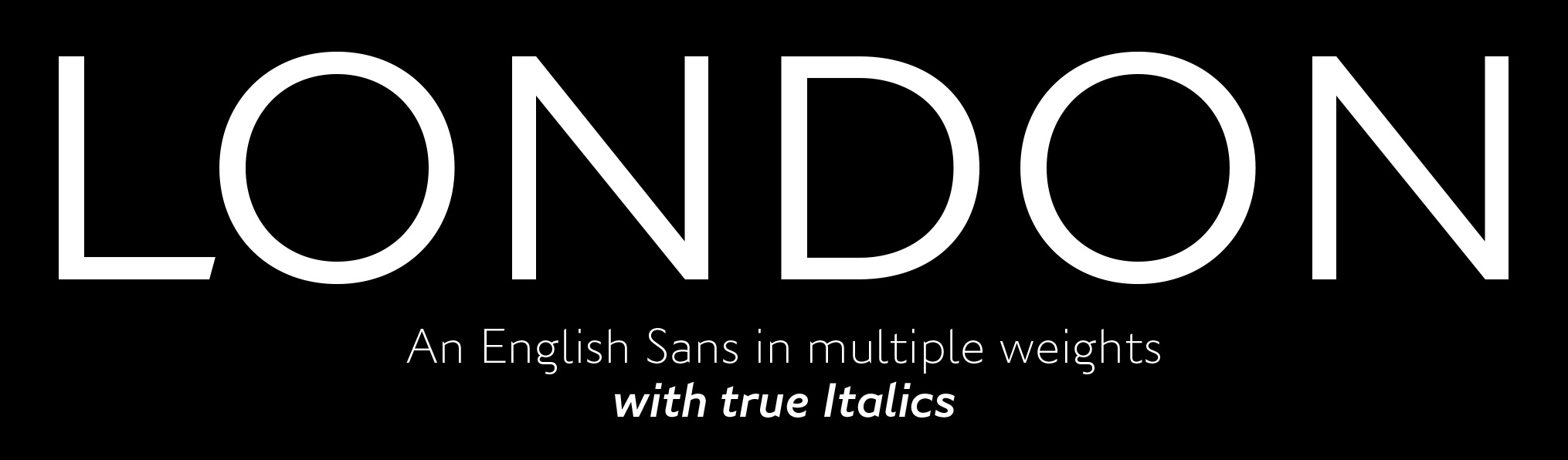
London Font
London Font is perfect for British heritage branding, English cultural marketing, traditional pub signage, royal commemoration events, UK tourism advertising, classic British fashion, historical London tours, and sophisticated British lifestyle campaigns.
What makes London Font exciting is its British sophistication that embodies the timeless elegance and cultural heritage of London with royal authenticity and English refinement. The font features distinguished letterforms with British proportions and metropolitan character that evoke Big Ben chimes, royal ceremonies, and the enduring tradition of British culture and London's architectural grandeur. Its distinctive English styling and royal appeal communicate tradition, sophistication, and cultural heritage, making every message feel blessed by royal approval and touched by the distinguished elegance of British tradition and London's metropolitan sophistication.
The London Font family includes regular weight with uppercase and lowercase letters, numerals, punctuation marks, and special characters. Premium versions often feature traditional alternates and British elements that enhance the royal, heritage aesthetic perfect for cultural and tourism applications.
The sophisticated character of London Font makes it particularly valuable for British cultural institutions, London tourism operators, and traditional English businesses. Its excellent readability ensures cultural messaging and heritage communications remain clear while maintaining the distinctive British aesthetic that appeals to audiences seeking authentic London experiences and English cultural sophistication.
British heritage marketers appreciate how London Font effortlessly conveys English authenticity and royal tradition. The font's distinguished proportions and cultural details create prestigious brand materials that establish connections with audiences who value British culture, royal heritage, and the sophisticated elegance of London's metropolitan culture and English tradition.
The versatile sophistication of this typeface extends to British luxury goods, royal commemoratives, and English cultural education where British authenticity enhances cultural credibility and royal appeal. London Font Free Download provides creative professionals with an essential tool for developing memorable, heritage-driven designs that resonate with audiences who embrace British culture, London sophistication, and the distinguished tradition of English heritage in their cultural and tourism experiences.